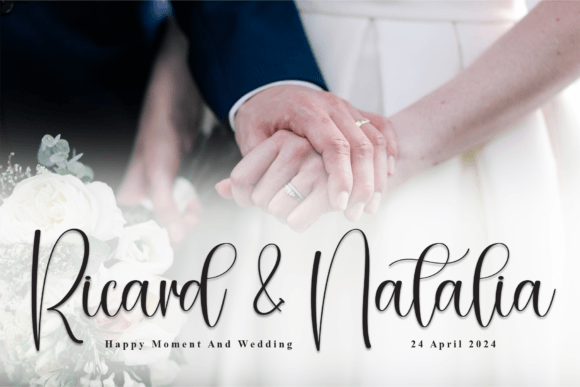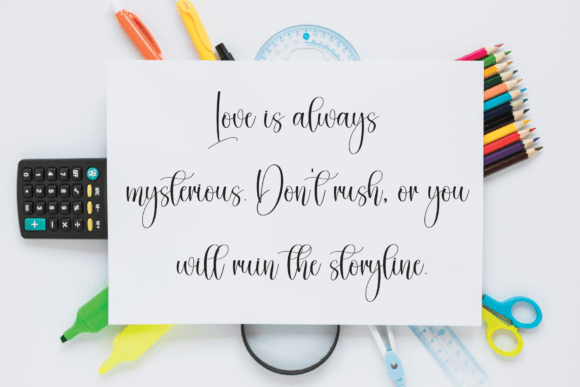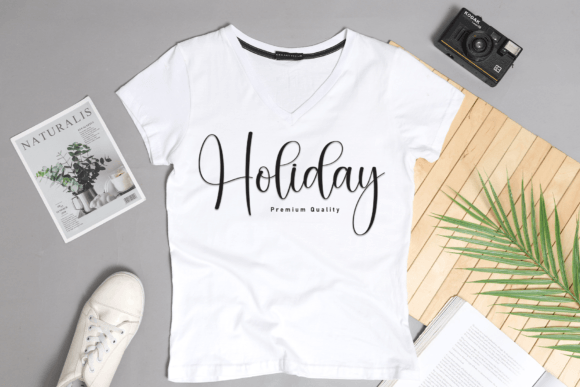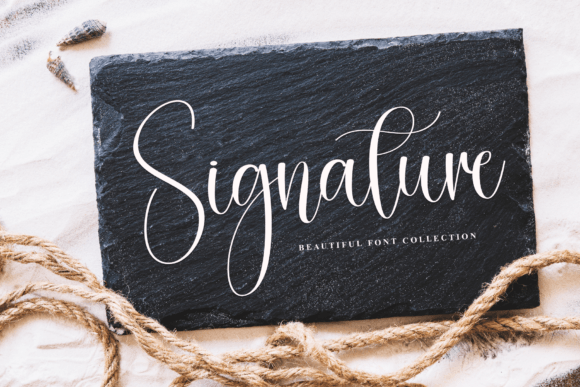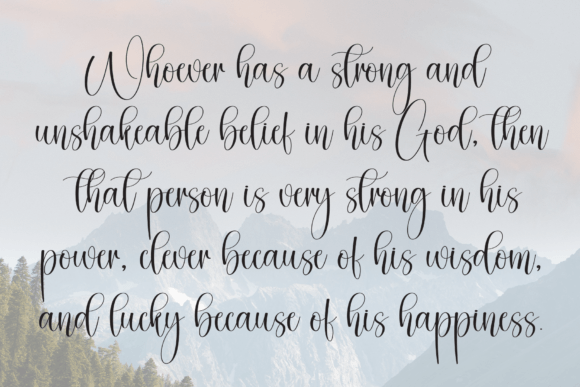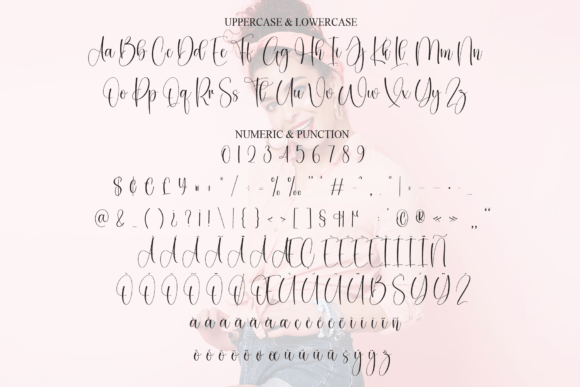
Introducing Coquette Font: Elevate Your Designs with Elegance and Whimsy
In the world of typography, few fonts manage to strike a balance between elegance and playfulness. Coquette Font is one such rare gem that seamlessly blends sophistication with a touch of whimsy, making it a perfect choice for designers and crafters looking to add a bespoke, artisanal feel to their projects.
The Essence of Coquette Font
Coquette is a modern handwritten font that boasts fluid, organic strokes and refined letterforms. Its unique charm lies in its ability to convey luxury and refinement while still feeling approachable and personal. This versatility makes Coquette an excellent choice for a wide range of applications, from upscale packaging and branding to editorial designs and digital content.
Key Features of Coquette Font
- Fluid, Organic Strokes: Coquette’s strokes are characterized by their smooth, flowing nature, which gives the font its distinctive elegance and sophistication.
- Refined Letterforms: Each letter in the Coquette font has been carefully crafted to ensure that it not only looks beautiful on its own but also contributes to a harmonious and aesthetically pleasing text flow.
- Modern yet Artisanal: Despite being a modern creation, Coquette possesses a timeless quality that evokes the feel of artisanal craftsmanship, making it perfect for projects that aim to convey a sense of bespoke luxury.
- Versatility: Coquette can be used in a variety of contexts, from high-end branding and packaging to editorial content and digital media, making it a valuable addition to any designer’s toolkit.
Applications of Coquette Font
The versatility of Coquette Font makes it suitable for numerous applications:
- Upscale Packaging: Add a touch of luxury to your product packaging with Coquette, making your brand stand out on the shelves.
- Branding: Use Coquette to create a distinctive brand identity that communicates elegance, sophistication, and a hint of whimsy.
- Editorial Designs: Whether you’re working on a magazine, a book, or any other form of editorial content, Coquette can add a level of refinement and charm that’s hard to achieve with more traditional fonts.
- Digital Content: From website headers to social media graphics, Coquette can help elevate your digital content, making it more engaging and visually appealing.
Tips for Using Coquette Font Effectively
To get the most out of Coquette Font, consider the following tips:
- Pair it with Contrasting Fonts: Combine Coquette with simpler, sans-serif fonts to create visual interest and hierarchy in your designs.
- Experiment with Colors: While Coquette looks stunning in traditional black and white, don’t be afraid to experiment with colors that complement your brand or project’s aesthetic.
- Pay Attention to Spacing: Given its elegant and somewhat whimsical nature, ensure that Coquette has enough spacing to breathe, preventing the text from feeling cramped.
Coquette Font is a beautiful, modern handwritten font that brings a much-needed dose of elegance and whimsy to the world of design. Its fluid strokes, refined letterforms, and versatile nature make it an excellent choice for designers and crafters looking to add a touch of bespoke sophistication to their projects. Whether you’re working on upscale packaging, branding, editorial designs, or digital content, Coquette is sure to make your work stand out.